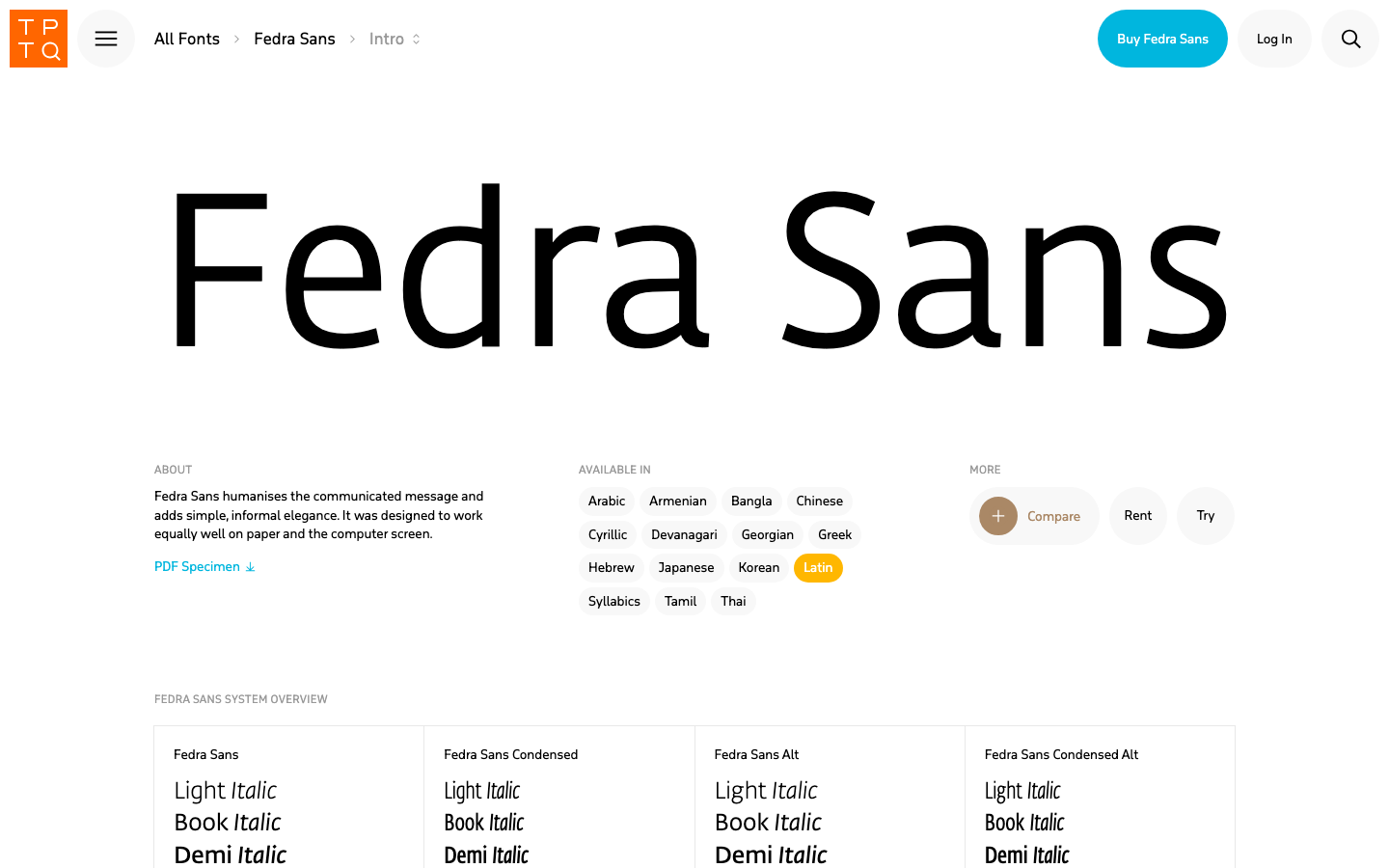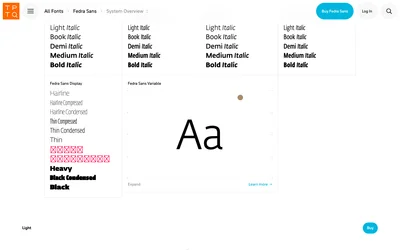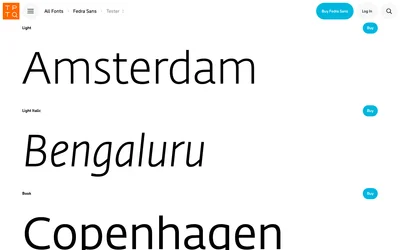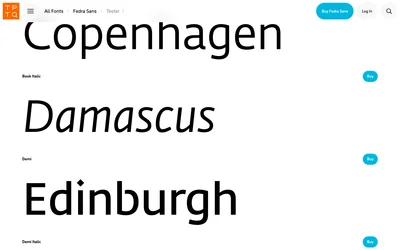
Fedra Sans vs Syntax
Fedra Sans and Syntax are both sans-serif typefaces sharing a humanist foundation. Where Fedra Sans leans web optimized, modern, Syntax brings elegant, script. Compare which suits your Editorial project.
Recommended: Fedra Sans
- web optimized, modern design character
- Suited for Ui
Consider: Syntax
- elegant, script design character
- Suited for Books